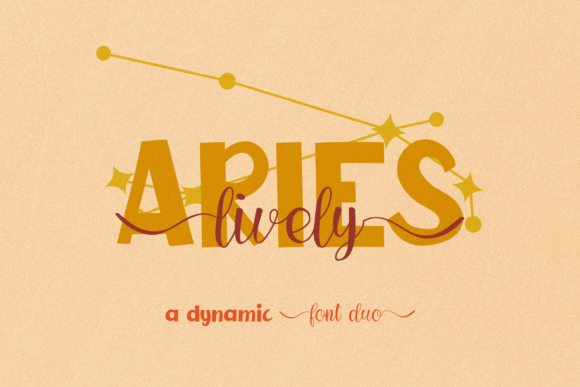
In a world of boundless creativity, where words dance and emotions ignite, there's a font duo poised to capture your imagination and transform your designs into masterpieces of expression. Allow us to introduce Lively Aries Duo, a harmonious blend of script and display fonts, meticulously crafted by Sweet Vibes to unleash your inner artist.
Lively Aries Duo is not just a collection of letters; it's a gateway to a realm where your ideas flourish and your designs come alive. Its enchanting script font, with its graceful curves and playful strokes, is like a melody whispered by the wind, adding a touch of whimsy to every word. Pair it with the bold and vivacious display font, reminiscent of a vibrant sunrise, and you'll create a visual symphony that captivates and inspires.
With Lively Aries Duo, you'll embark on a creative journey like no other. It's the perfect companion for any project that demands a touch of elegance and joy. Whether you're designing logos, crafting invitations, creating social media graphics, or simply adding a personal touch to your digital creations, this font duo will elevate your work to new heights.
With its PUA encoding, Lively Aries Duo opens up a world of possibilities. Access all the glyphs and swashes with effortless ease, unleashing a symphony of creative expression. Experiment with different combinations, intertwine the script and display fonts, and watch as your designs transform into captivating works of art.
Join the creative revolution and embrace Lively Aries Duo, the font duo that will ignite your imagination and leave an indelible mark on your designs. Let your creativity soar, let your words dance, and let your designs come alive with the magic of Lively Aries Duo.